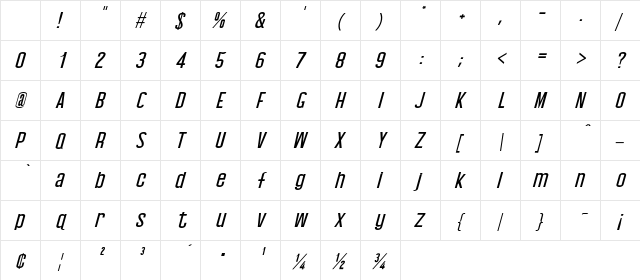
Complete Baby Blues Italic glyph index. Displaying only characters natively supported by Baby Blues Italic font.
Baby Blues is a composed and adaptable typeface that performs quietly and consistently across a wide range of design contexts. The slanted form adds forward momentum and visual energy.
Pro Tip: Use Baby Blues for emphasis, pull quotes, and subheadings where its slanted energy can add rhythm to the layout.